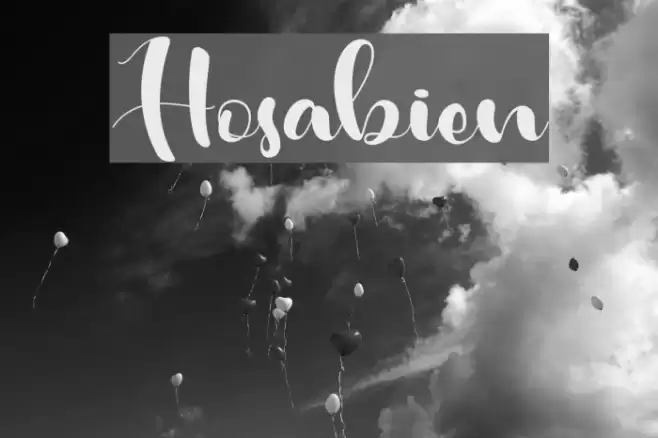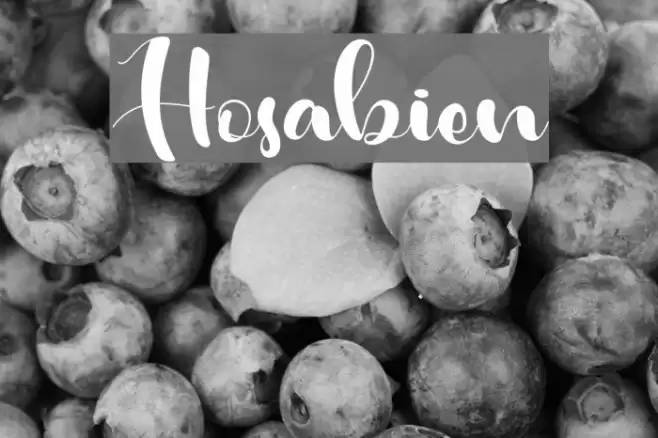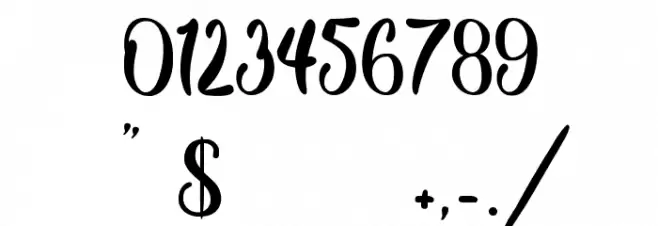
Hosabien Font
Hosabien Description
This font is a decorative script style that features elegant, flowing lines and a calligraphic touch. The uppercase letters are characterized by their sweeping curves and flourishes, giving them a sophisticated and artistic appearance. The lowercase letters maintain a consistent style, with smooth connections between strokes, enhancing readability while retaining a stylish flair. The numerals are designed to match the overall aesthetic, with a slightly playful yet refined look. Special characters are thoughtfully integrated, maintaining the font's cohesive design. This font is ideal for projects that require a touch of elegance and creativity.
A decorative script font with elegant, flowing lines and calligraphic flourishes from Uncategorized fonts.
- Proposed Projects: Ideal for wedding invitations, greeting cards, branding, and elegant packaging designs.
- Use Case: Logos, Invitations, Decorative Text